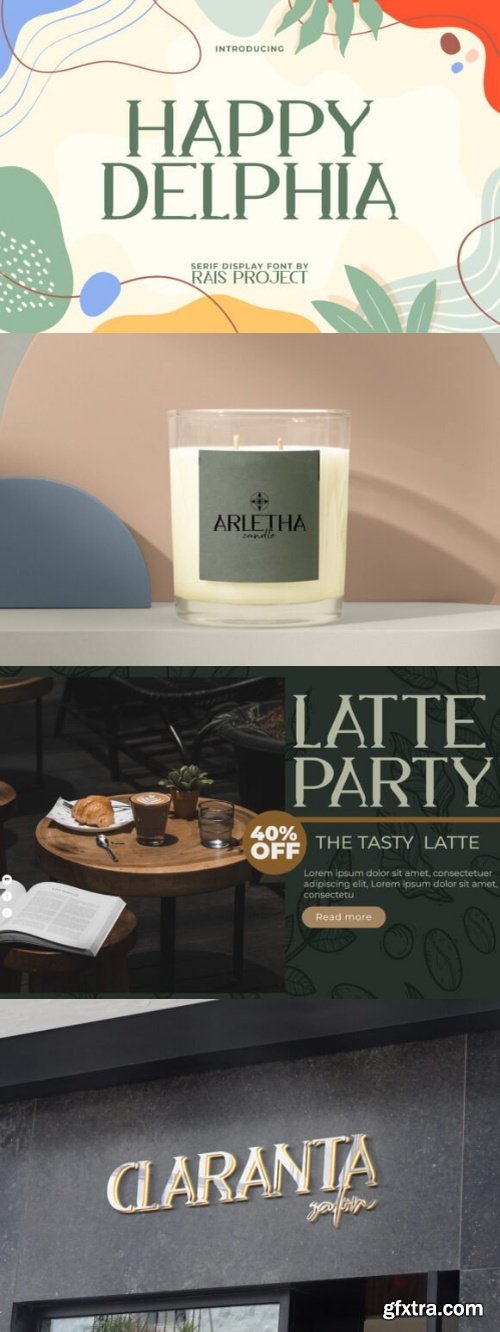
Happy Delphia Font
- Happy Delphia Font is a unique, unusual serif display font with a playful style. This font has a unique shape and can stand out in your design when combined with other types of fonts. It will work well in many designs, such as brand image, custom design, invitation, label, menu, poster, product packaging, quote, signage, stationery, web, and more!